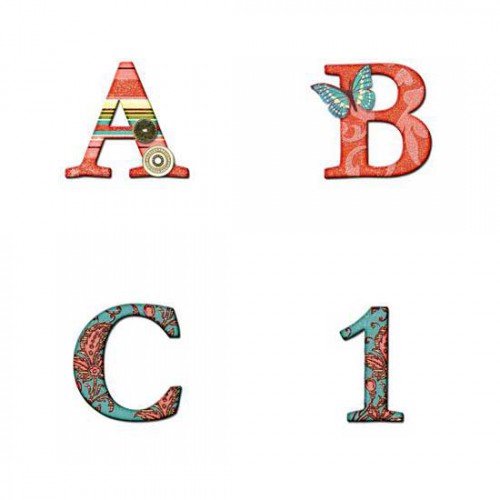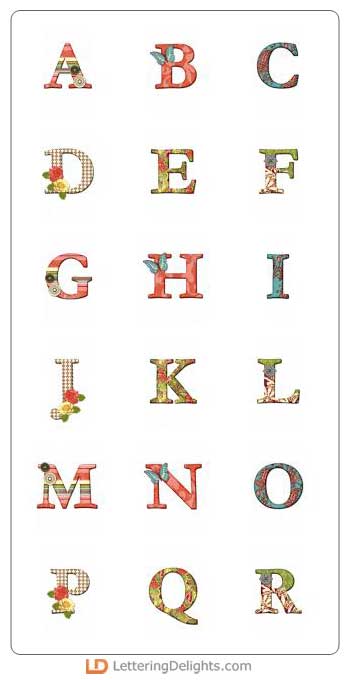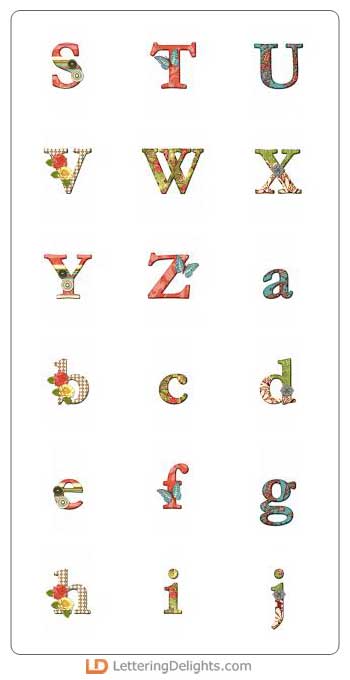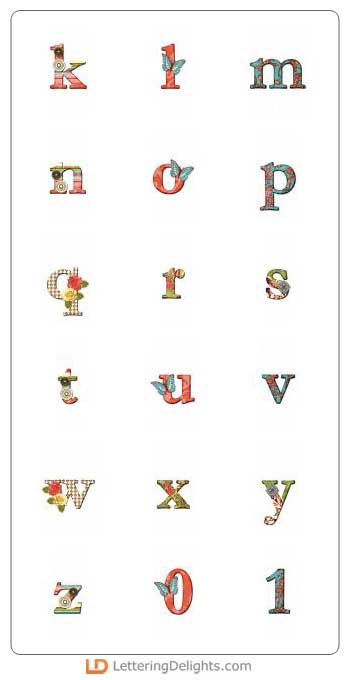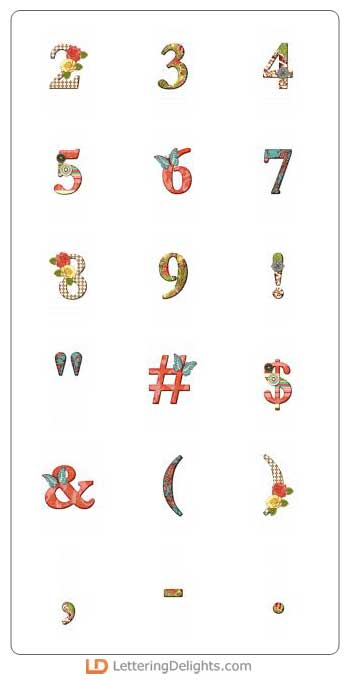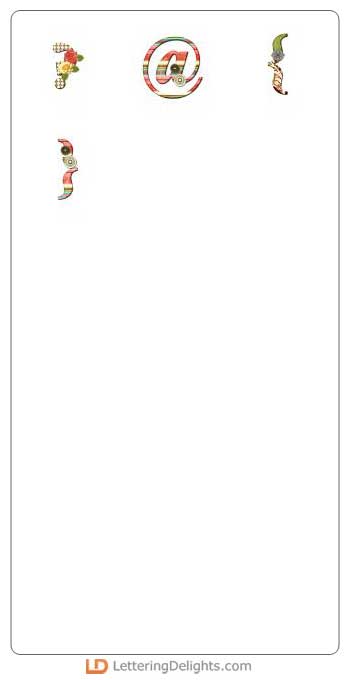
The Nostalgia Alphabet looks as though you not only took the time to cut each letter from the lovely vintage background images of the Nostalgia Paper Pack, but also added a perfectly placed embellishment or two from the Nostalgia graphics set, making a beautifully coordinated finished product, and a true keepsake, as well.